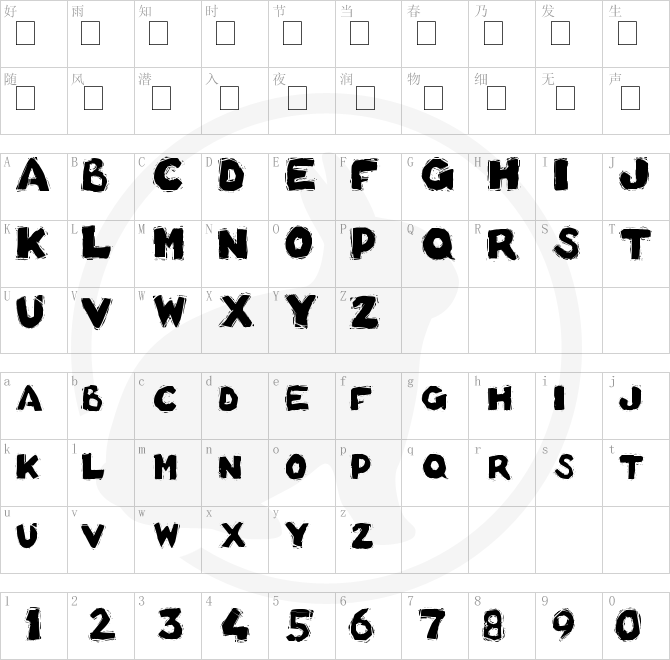
- Font Name:!Basket of Hammers
!Basket-of-Hammers-Bold.ttf is a very beautiful artistic font, !Basket-of-Hammers-Bold.ttf is widely used in the design and printing of various books and pictures,!Basket-of-Hammers-Bold.ttf has a strong visual impact,!Basket-of-Hammers-Bold.ttf is a commonly used font in newspapers, magazines and books, and is used in posters, e-commerce Poster design, store design, logo design, font design and other fields.!Basket-of-Hammers-Bold.